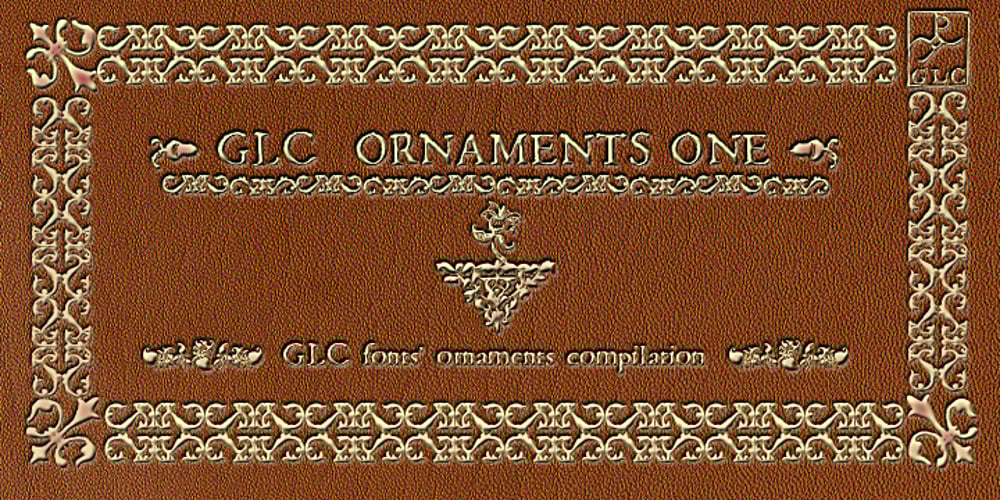
GLC Ornaments One Font Family was designed by Gilles Le Corre and published by GLC. GLC Ornaments One contains 1 styles and family package options. This font is a collection made with the largest part of the ornaments contained in the GLC foundry medieval and renaissance period fonts. It was made for the use of customers who wish to embellish their works without buying our complete catalog! It is used to embellish and animate as variously as web-site titles, posters and fliers design or greeting cards, all various sorts of presentations, menus, certificates, letters. It was specially drawn to accompany our medieval and renaissance fonts, like 1462 Bamberg, 1509 Leyden, 1538 Schwabacher, 1543 Humane Jenson, 1557 Italique, 1589 Humane Bordeaux, 1592 GLC Garamond and others, giving them an historical additional genuine touch…